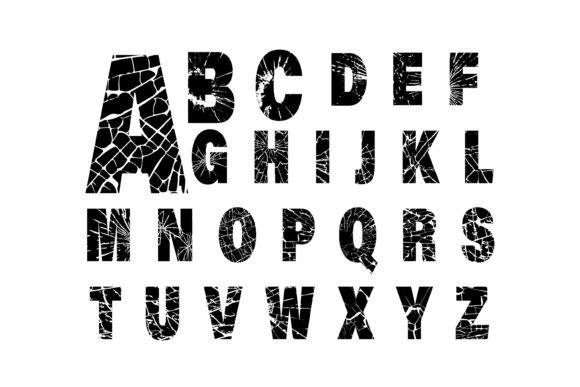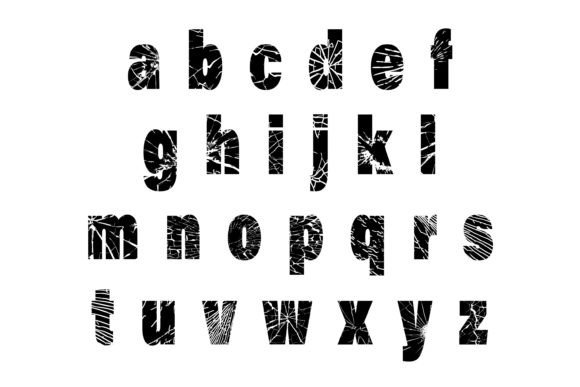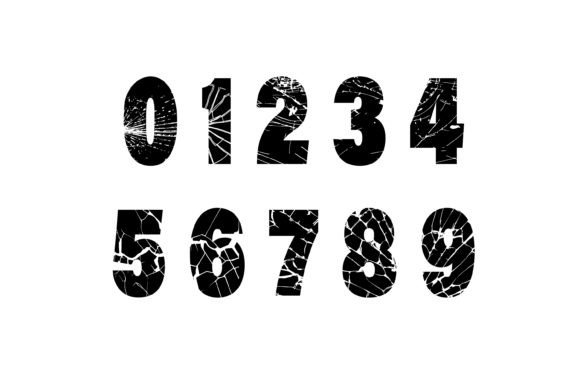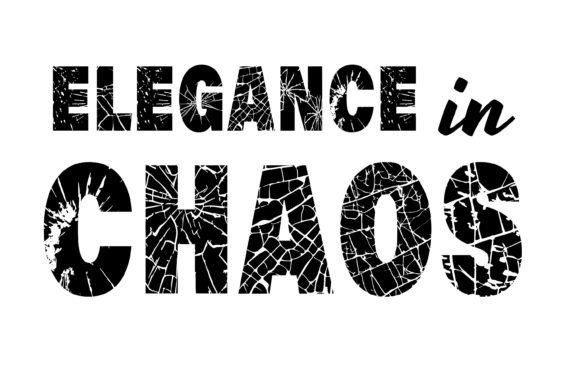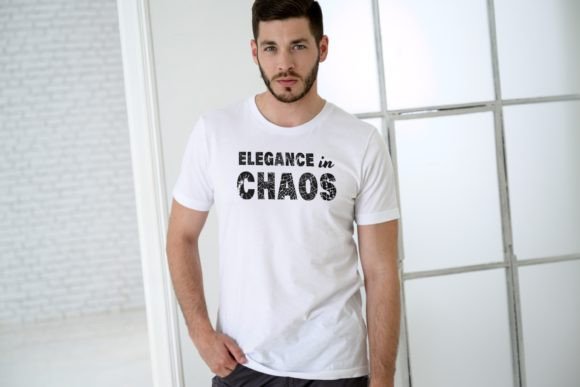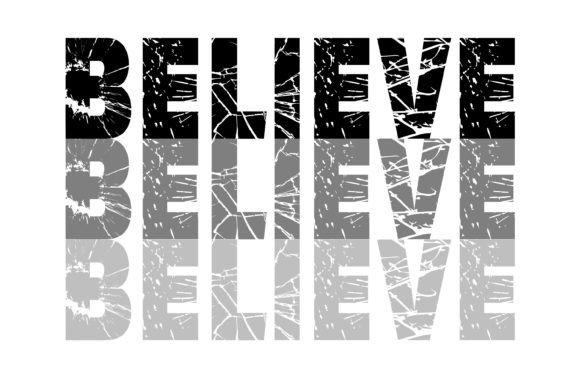
Introducing Fissured Font: The Ultimate Typographic Innovation
In the realm of typography, a new revolution is taking shape. Meet “Fissured Font,” a game-changing typeface that masterfully merges classic letterforms with the rugged beauty of cracked surfaces. This innovative font is poised to transform the design landscape, offering a bold and distinctive voice for creatives seeking to make a lasting impact.
The Genesis of Fissured Font
Fissured Font is the brainchild of visionary designers who sought to push the boundaries of traditional typography. By combining the timeless elegance of classic letterforms with the raw, textured appeal of shattered surfaces, they created a font that is both captivating and thought-provoking. The result is a typographic masterpiece that exudes depth, character, and a hint of rebelliousness.
Unleashing Creative Potential
With Fissured Font, designers can unlock a world of creative possibilities. Whether you’re crafting edgy branding, eye-catching posters, or striking packaging, this font ensures your creations leave a lasting impression. Its versatility knows no bounds, making it an ideal choice for a wide range of design projects, from bold and daring to subtle and sophisticated.
Key Features of Fissured Font
- Unique Texture: Fissured Font boasts an unparalleled texture that mimics the intricate crack patterns found in shattered surfaces. This distinctive feature adds a layer of depth and visual interest to your designs.
- Classic Letterforms: The font’s classic letterforms provide a sense of timelessness and elegance, ensuring your designs remain relevant and sophisticated.
- Bold and Distinctive: Fissured Font is designed to make a statement. Its bold and distinctive voice is perfect for designers seeking to create striking visuals that capture attention.
- Versatility: This font is incredibly versatile, making it suitable for a wide range of design projects, from print materials to digital applications.
Design Applications for Fissured Font
Fissured Font is an incredibly versatile typeface, making it suitable for a wide range of design applications. Here are a few ideas to get you started:
- Branding: Use Fissured Font to create bold and memorable logos that make a lasting impression.
- Posters and Flyers: Add an edgy touch to your promotional materials with this striking font.
- Packaging: Elevate your product packaging with Fissured Font’s unique texture and classic letterforms.
- Digital Design: Incorporate Fissured Font into your digital projects, such as website headers, social media graphics, and more.
Tips for Working with Fissured Font
To get the most out of Fissured Font, consider the following tips:
- Experiment with Color: Play with different color schemes to enhance the font’s texture and visual impact.
- Balance is Key: Balance Fissured Font with simpler typography to create visual harmony.
- Size Matters: Use Fissured Font in larger sizes to maximize its impact and showcase its unique texture.
Fissured Font is a game-changing typeface that is poised to revolutionize the world of design. Its captivating fusion of classic letterforms and intricate crack patterns makes it an ideal choice for creatives seeking to make a lasting impact. With its versatility, bold voice, and distinctive texture, Fissured Font is the perfect tool for designers and crafters looking to elevate their designs and crack the mold.
Get Ready to Crack the Mold with Fissured Font
Join the typographic revolution with Fissured Font. Explore the captivating world of this innovative typeface and discover a new realm of creative possibilities. Whether you’re a seasoned designer or a crafty enthusiast, Fissured Font is sure to inspire and empower you to create visuals that leave a lasting impression.